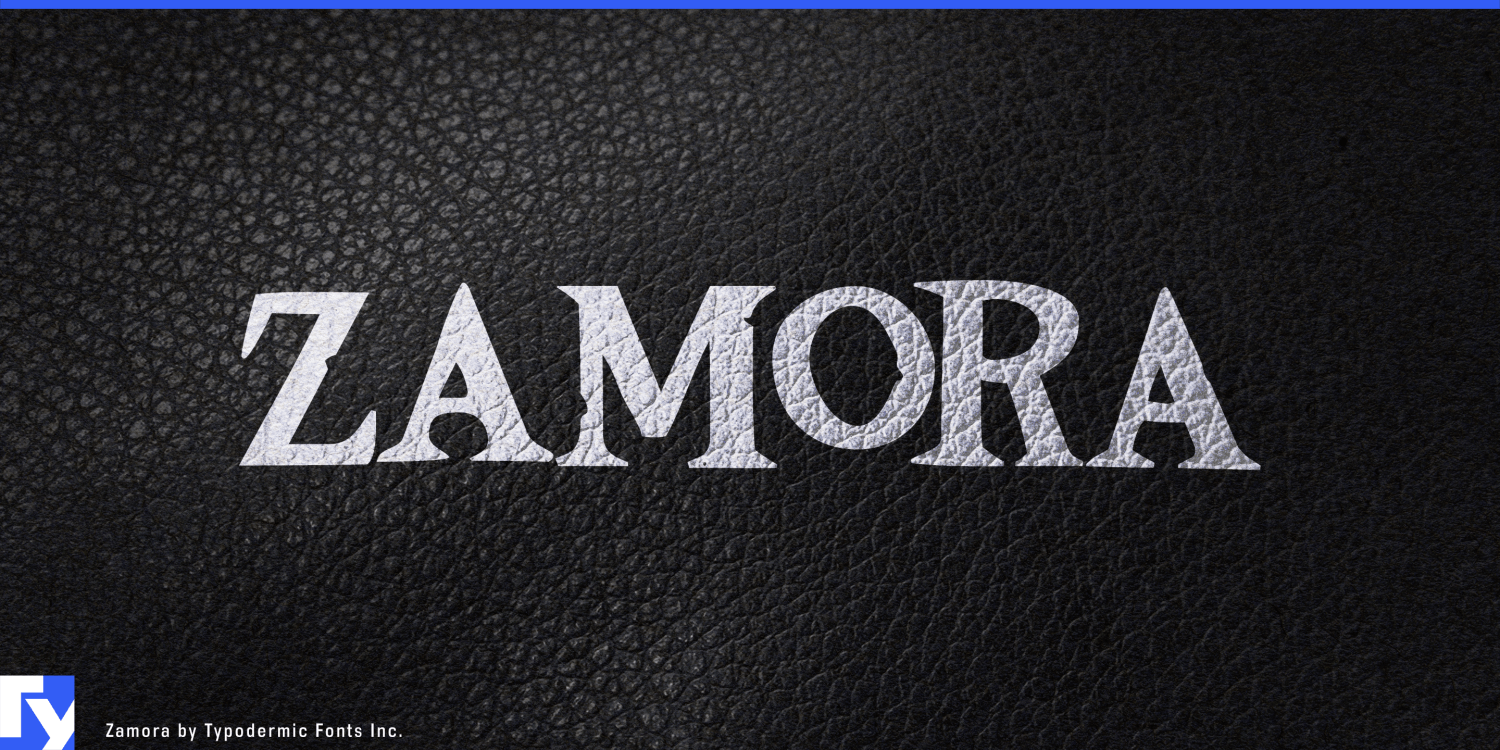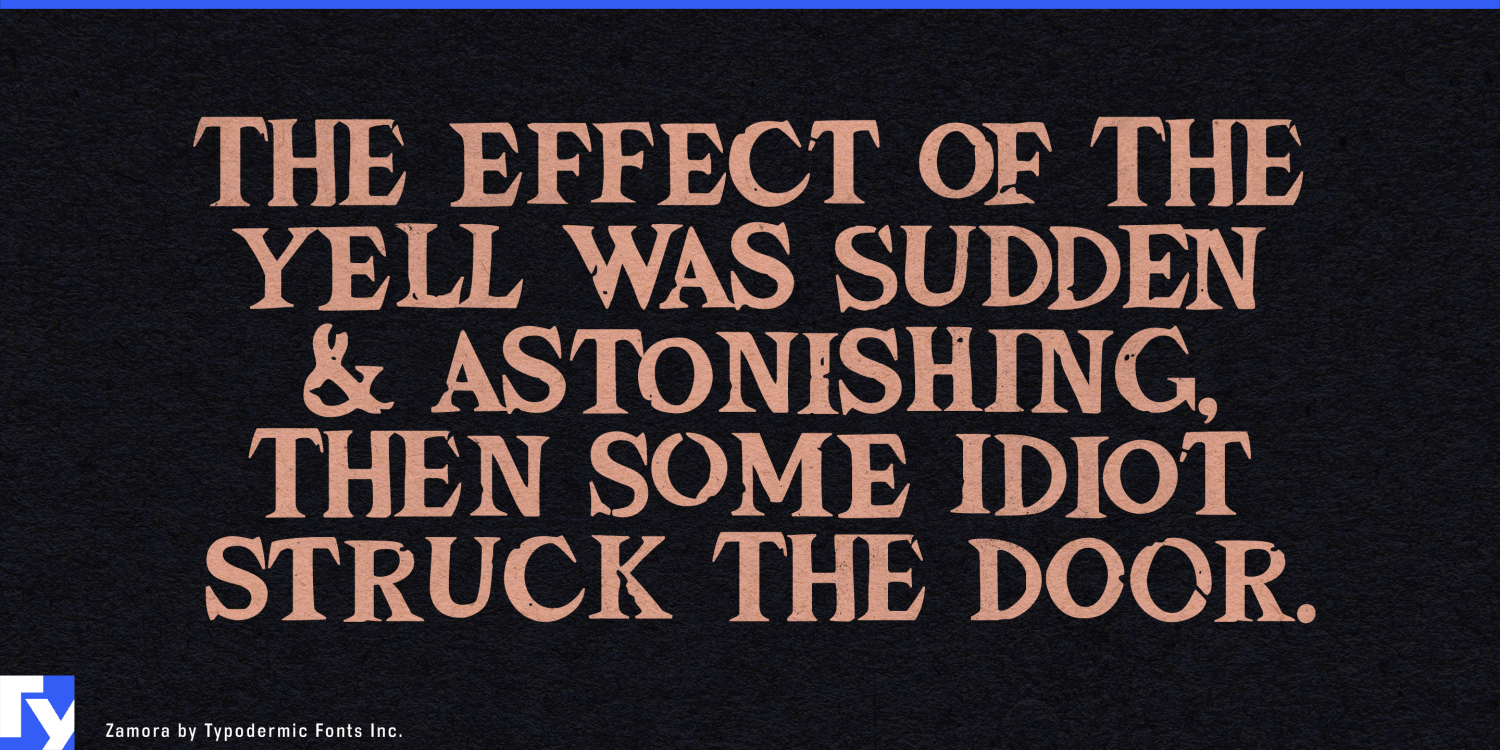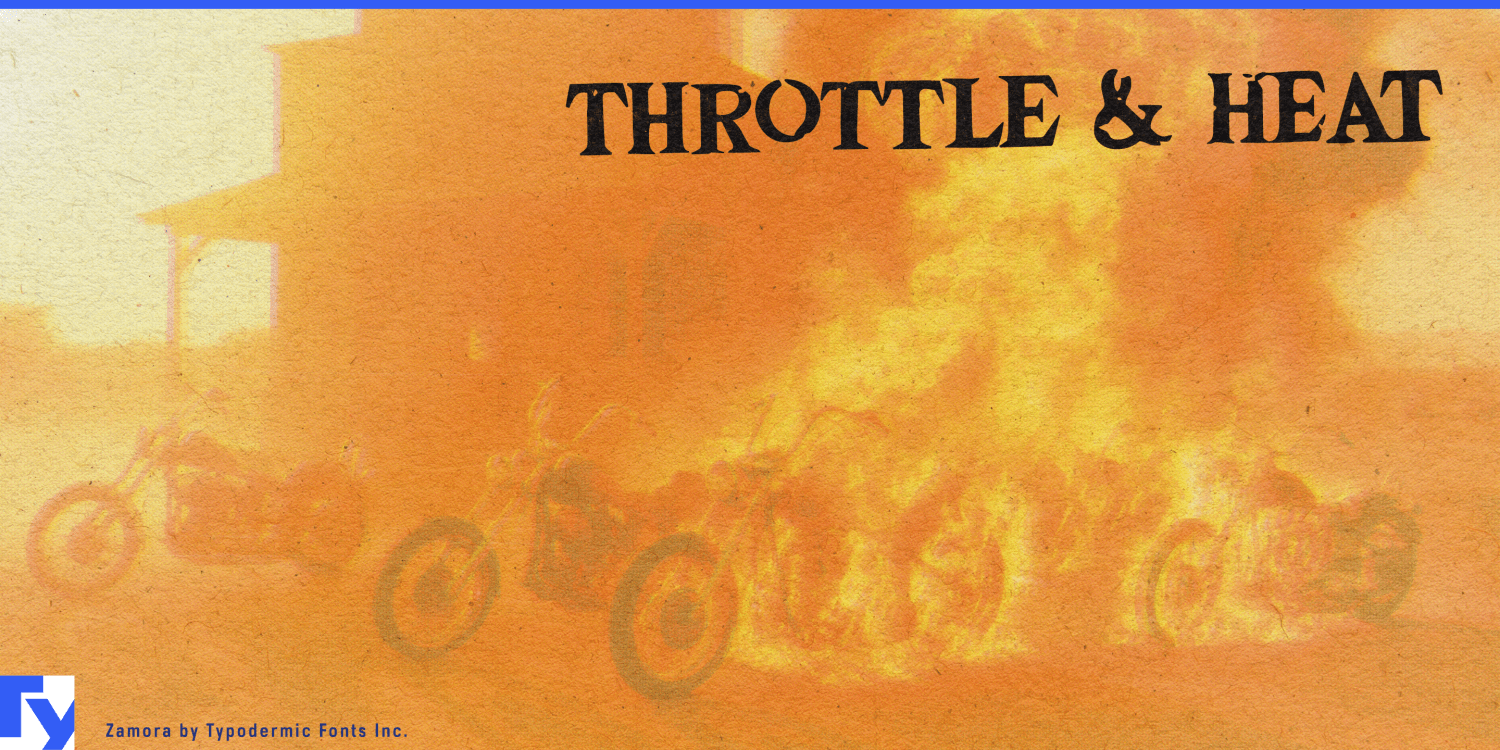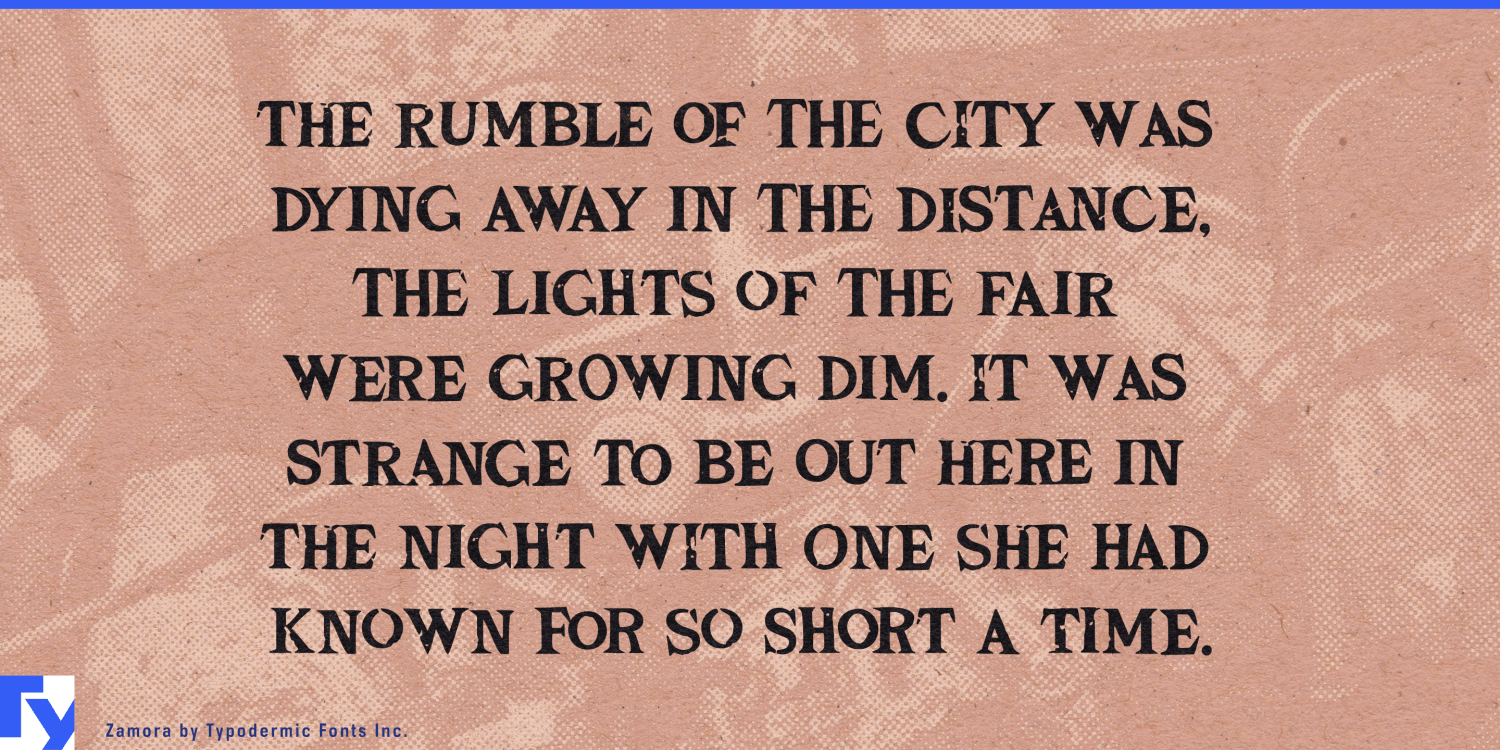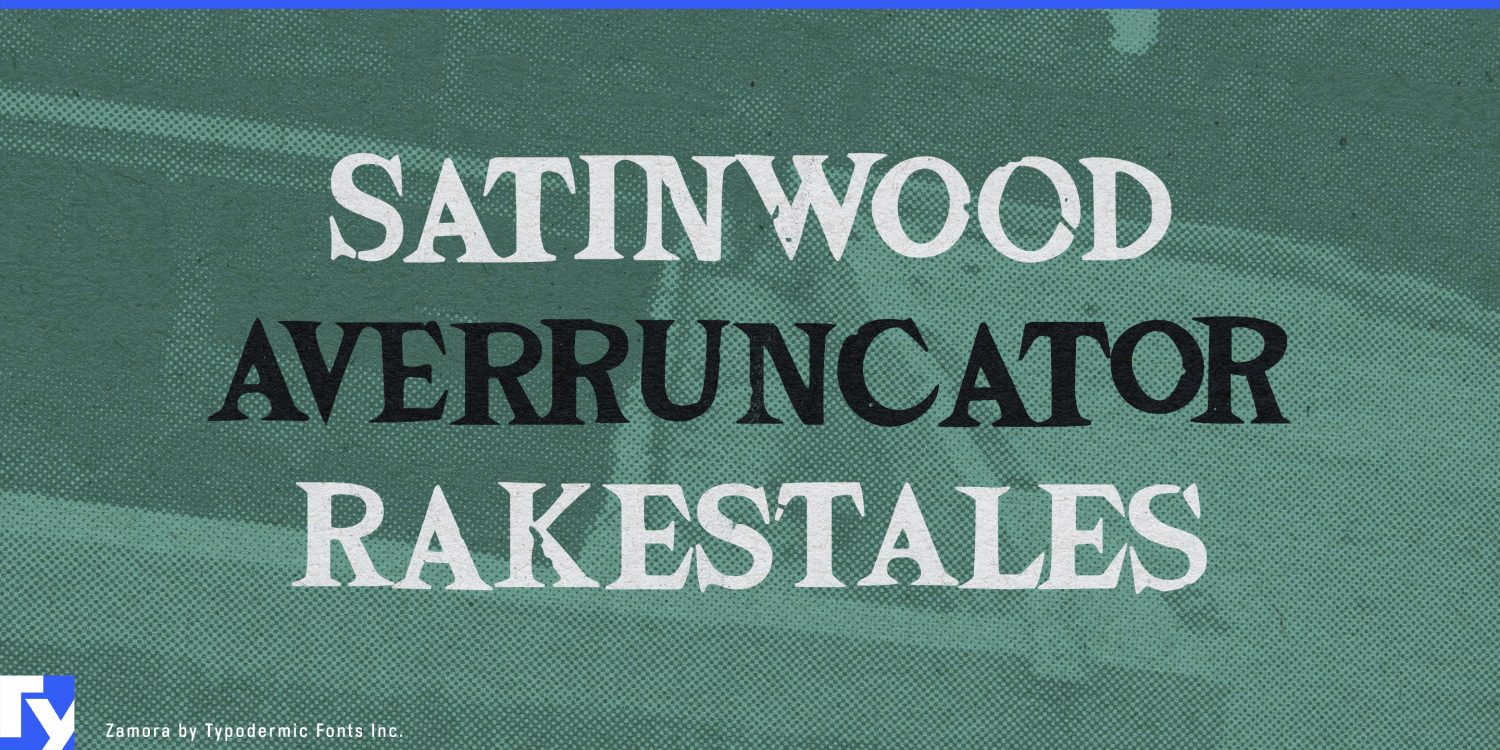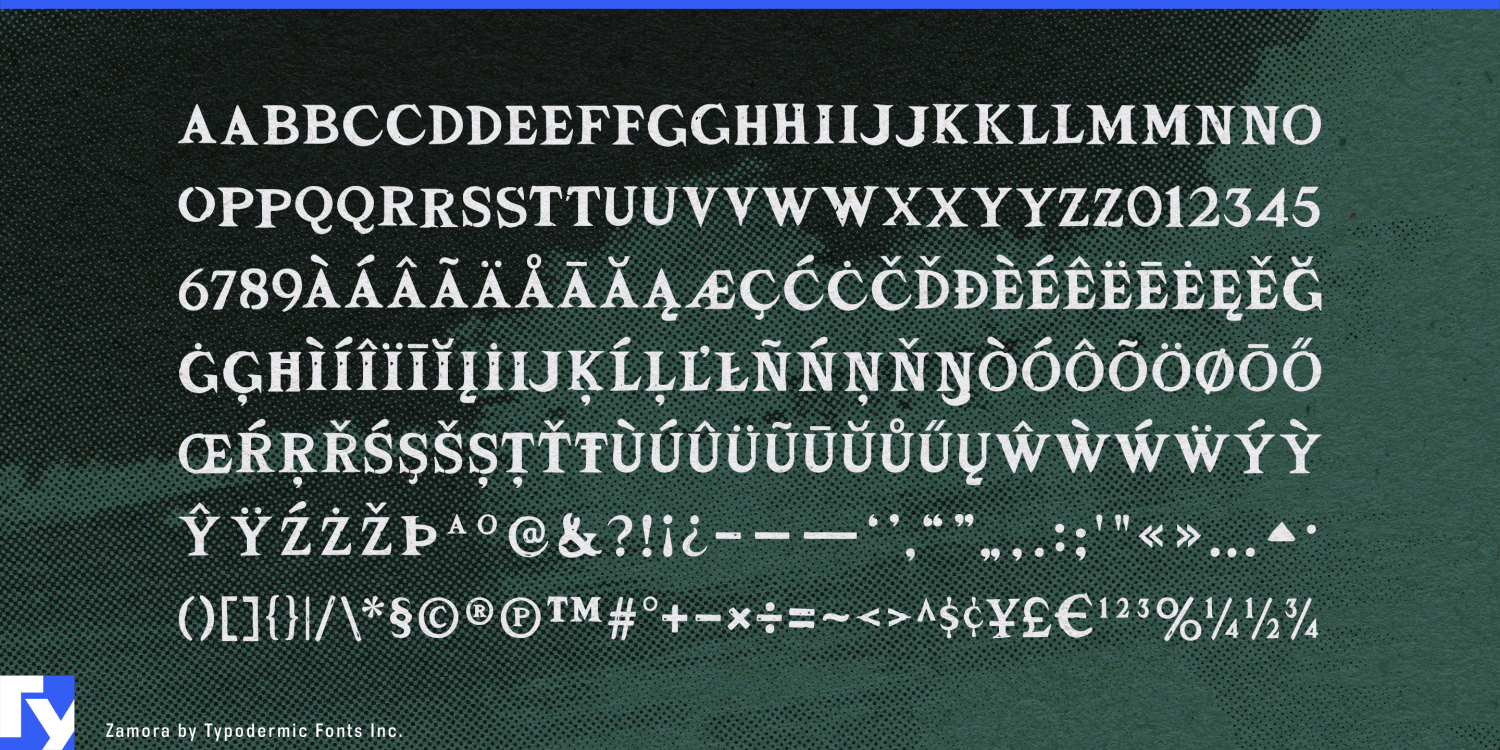
Zamora
Font Family by Typodermic
Rock typography often confuses wear with destruction. Blackletter, splatter and brutal condensed capitals can make a guitar product or touring identity look heavier and more hostile than the music; a clean serif can feel too polished to belong near a stage, workshop or road case. Zamora keeps the poise of a sharp wedge serif, then chips the surface just enough to feel played-in rather than wrecked.
Small notches and worn edges interrupt the letters without dissolving their structure, so names remain clear while gaining the texture of equipment that has survived rehearsals, loading docks and long drives. The underlying forms are composed rather than chaotic; Zamora brings grit without automatically suggesting horror, extreme sports or the heaviest end of metal.
Guitar equipment gives that balance a practical role. Pedals, amplifiers, pickups, speaker cabinets and effects processors need short product names that can become recognizable marks on enclosures, faceplates and packaging. Zamora can give a pedal series or amplifier model a rock-and-roll identity while a neutral sans carries control labels, specifications and instructions.
The same distinction matters as more guitar equipment moves onto screens. Amp modelers, cabinet simulators, software effects and connected pedalboards can easily resemble ordinary software or consumer electronics. Zamora brings the rehearsal room back into product names, preset collections, expansion packs and campaign headings without interfering with the functional interface beneath them.
Music publishing creates another problem: one project may need dozens or hundreds of song titles that feel related without looking mechanically identical. Zamora can establish titles across guitar chord sheets, artist songbooks, rehearsal libraries, tour binders and lesson platforms while lyrics, chord symbols, diagrams and notes remain plain and functional. Its built-in ligatures vary recurring letter combinations, helping repeated headings retain the feeling of designed lettering.
Custom motorcycle builders, component manufacturers, touring-luggage companies and riding-gear brands face a similar choice between neutral industrial type and theatrical blackletter. Zamora suits tank graphics, parts-series names, leather patches, catalogue covers and product packaging with a road-worn tone closer to touring culture than outlaw-club costume.
Zamora is built for guitar products, song-title systems, touring identities and motorcycle-related brands that need evidence of use rather than evidence of destruction.